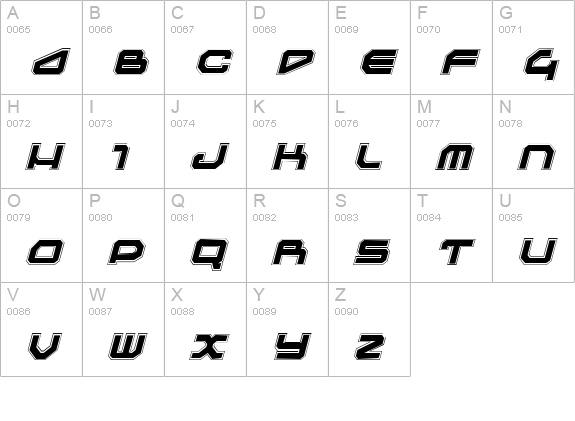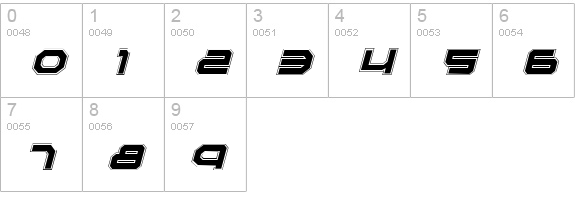
Traveler Pro Italic is a distinctive, italic variant in the Traveler typeface family \xE2\x80\x94 well suited to design and typography projects.
Introducing Traveler Pro Italic font - a sleek and sophisticated typeface that is perfect for adding a touch of elegance to your design projects. This italic variation of the Traveler Pro font family exudes a sense of modernity and style, making it ideal for use in branding, advertising, and editorial design. With its unique combination of sharp angles and curved lines, Traveler Pro Italic font strikes the perfect balance between professionalism and creativity. Its clean and legible design ensures that your message is conveyed clearly and effectively, while its distinctive italic style adds a dynamic and eye-catching element to your text. What's even better is that Traveler Pro Italic font is available for free download at FontsMarket.com. This means that you can easily access this high-quality typeface without any cost, making it an excellent choice for designers on a budget. Don't miss out on the opportunity to enhance your projects with the stylish and versatile Traveler Pro Italic font today!